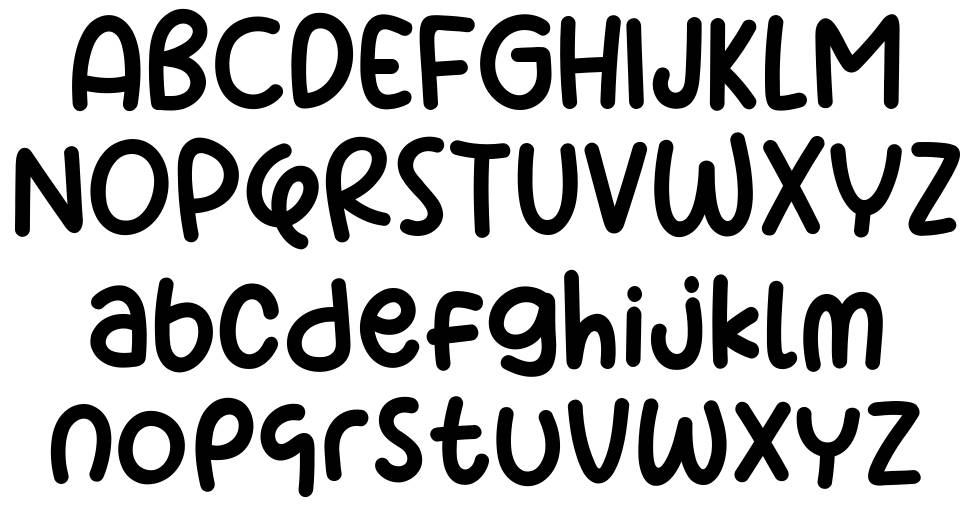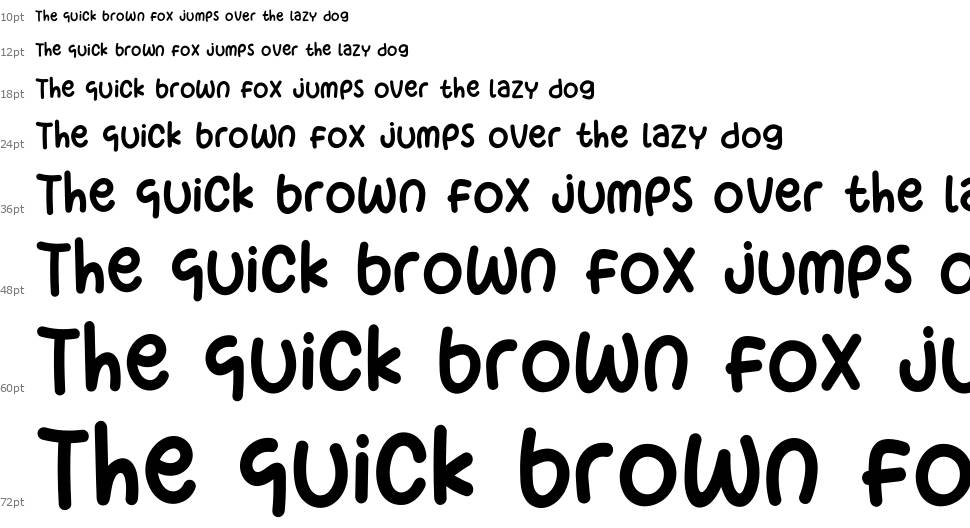
Banana Days Font Free Download . Fonts are in ttf, otf format and with direct download link and preview. banana days font is a cartoon font designed by khurasan & jalembe. Every font is free to download! You can download the banana. free download of days artysian font. banana days font download is available free from fontget. monday banana € by khurasan. Extra days € by khurasan. looking for banana days font designed by khurasan? ️ this font has been downloaded 600+ times. Moreover, you can embed it. looking for banana fonts? This product free for personal use. get your very own free download of the banana days font, designed and created by khurasan. thousands of designers (famous or not) use the image font detection system to find a font or similar free fonts.
This product free for personal use. free download of banana days font. licensed for commercial use. introducing, banana days font a fun display typeface with cheerful theme for your fun project. the banana days font contains over 20 beautifully designed characters. free fonts by category, type, daily updates. Fonts are in ttf, otf format and with direct download link and preview. Moreover, you can embed it. Every font is free to download! monday banana € by khurasan.
Banana Days Font Free Download banana days is a fun and cool display font. looking for banana fonts? looking for banana days font designed by khurasan? Perfect for a variety of projects, this. Every font is free to download! Click here to create a custom image with your own text. banana days font is a cartoon font designed by khurasan & jalembe. Click now to create a custom image with your own words that you can download. licensed for commercial use. Fonts are in ttf, otf format and with direct download link and preview. free fonts by category, type, daily updates. ️ this font has been downloaded 10+ times. download and install the banana days font for free from ffonts.net. extra days font | dafont.com. If you want the full version and license for. get your very own free download of the banana days font, designed and created by khurasan.
Banana Days Font Download Banana Days Font Free Download free download of days artysian font. banana days font family designed by khurasan & jalembe has a total of 1 different styles. Moreover, you can embed it. Every font is free to download! extra days font | dafont.com. banana days is a fun and cool display font. Click to find the best 19 free fonts in. Banana Days Font Free Download.
Banana Font Banana Days Font Free Download Extra days € by khurasan. the banana days font contains over 20 beautifully designed characters. looking for banana fonts? introducing, banana days font a fun display typeface with cheerful theme for your fun project. Fonts are in ttf, otf format and with direct download link and preview. Moreover, you can embed it. banana days font family. Banana Days Font Free Download.
Banana font Royalty Free Vector Image VectorStock Banana Days Font Free Download Available in both ttf and otf. thousands of designers (famous or not) use the image font detection system to find a font or similar free fonts. get your very own free download of the banana days font, designed and created by khurasan. banana days font download is available free from fontget. This product free for personal use.. Banana Days Font Free Download.
Banana Font Vector Illustration 103348394 Banana Days Font Free Download click here and download the banana days font · window, mac, linux · last updated 2024 · commercial licence included Click to find the best 19 free fonts in the banana style. banana days font family designed by khurasan & jalembe has a total of 1 different styles. thousands of designers (famous or not) use the image. Banana Days Font Free Download.
The Banana Font. Vector Alphabet Flat Design Stock Vector Banana Days Font Free Download download and install the banana days font for free from ffonts.net. free download of days artysian font. free fonts by category, type, daily updates. Perfect for a variety of projects, this. click here and download the banana days font · window, mac, linux · last updated 2024 · commercial licence included Click now to create a. Banana Days Font Free Download.